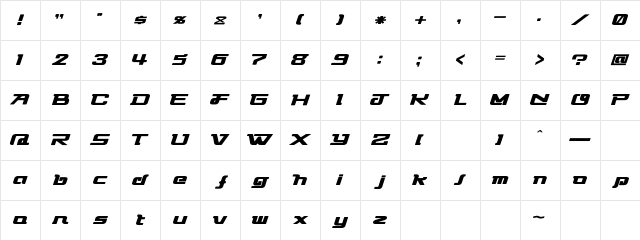
Ef4000cc Regular
Design Context for Ef4000cc
Ef4000cc is a composed and adaptable typeface that performs quietly and consistently across a wide range of design contexts.